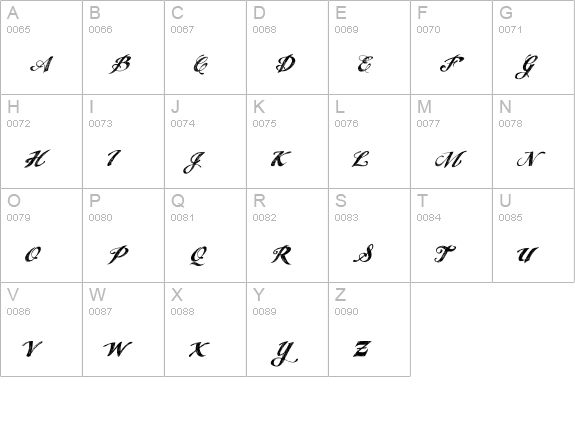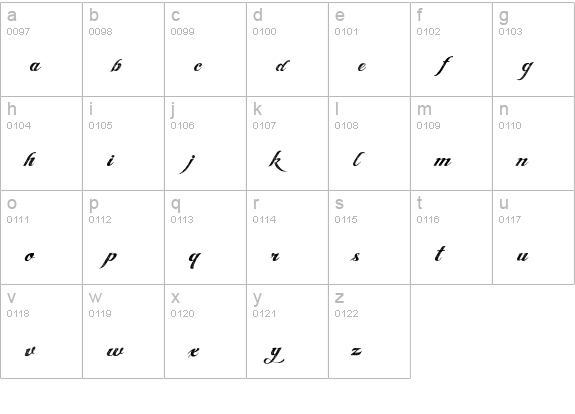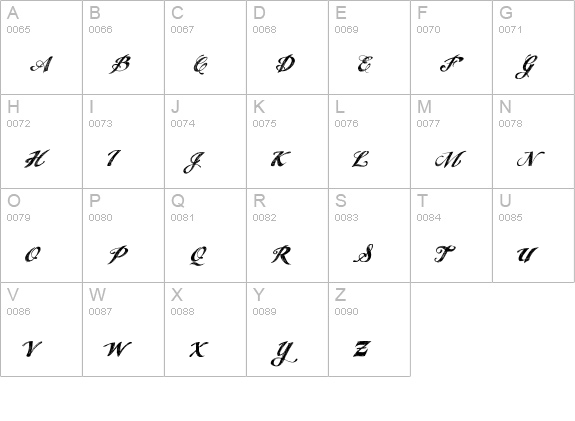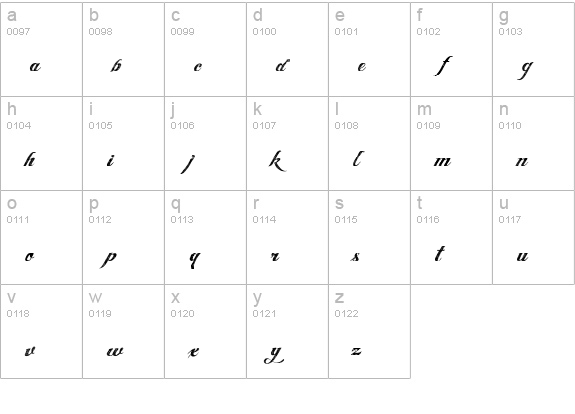
ANGEL TEARS trial Font Details
Introducing ANGEL TEARS, a beautifully crafted trial font that will captivate your imagination and add a touch of ethereal elegance to your designs. This exquisite typeface is carefully designed to evoke a sense of grace and delicacy, making it perfect for projects that require a touch of sophistication. ANGEL TEARS trial font boasts a unique combination of flowing curves and intricate details, giving it a truly mesmerizing quality. Its gentle strokes and graceful letterforms will effortlessly transport your audience to a world of beauty and enchantment. One of the most remarkable features of ANGEL TEARS is that it comes in a trial version that is absolutely free. Yes, you heard it right! This extraordinary font can be freely downloaded from FontsMarket.com, allowing you to explore its versatility and potential without any cost. Whether you are a professional designer or a creative enthusiast, this trial version gives you the opportunity to experience the enchantment of ANGEL TEARS firsthand. With its extensive glyph set and multiple ligatures, ANGEL TEARS offers endless possibilities to elevate your designs to new heights. From elegant logos and branding materials to wedding invitations and editorial layouts, this font will effortlessly enhance the aesthetic appeal of any project. Furthermore, ANGEL TEARS is compatible with various design software and can be easily integrated into your workflow. Its user-friendly nature ensures a seamless and hassle-free experience, allowing you to focus on what truly matters – unleashing your creativity. So why wait? Embrace the captivating allure of ANGEL TEARS and let your designs shine with a touch of celestial beauty. Download the free trial version today at FontsMarket.com and discover the magic of this extraordinary font.